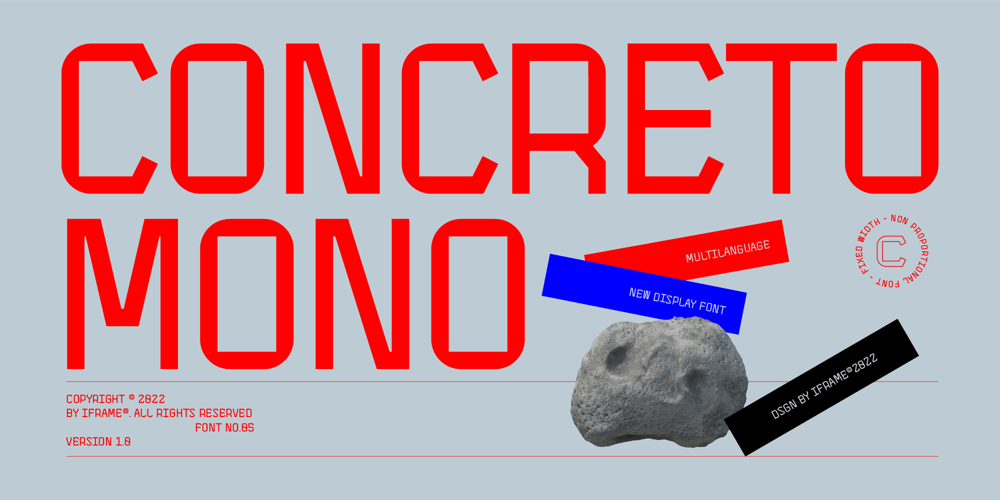
Concreto Mono Font Family was designed by Thodoris Nikolopoulos and published by iframe. Concreto Mono contains 1 styles and family package options. Concreto Mono is a monospaced san serif, built in regular style. The word concrete comes from the Latin word “concretus” meaning compact. Concreto Mono is released in OpenType format with support for most languages.Features:_ Multilanguage Support_ Letters Uppercase + Lowercase_ Glyphs_ Numbersdesign by iframe